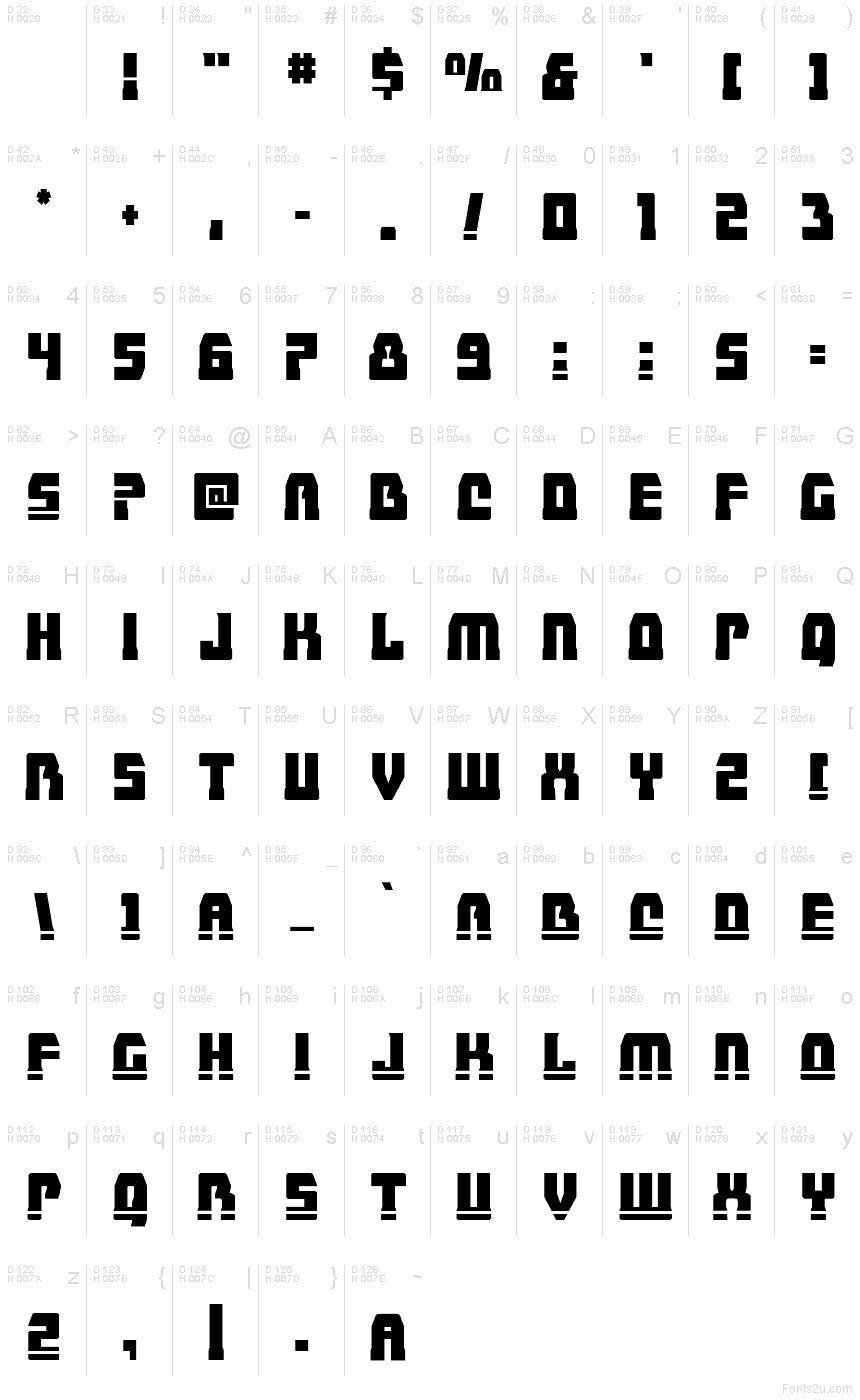
Librator Stripe
Librator Stripe font is a techno display typeface created by Iconian Fonts. The bold font has a distinct industrial feel, with strong presence, geometric structure, and retro vibe. It also showcases assertive style and bold emphasis. And while it’s eye-grabbing, Librator Stripe is easy to read.
Use the free font for contemporary applications in branding and poster designs. It would look wonderful in large book covers and magazine titles as well as website headlines. Enjoy further experimenting with it for ads, flyers, social media platforms posts, event information signs or billboards artwork among other projects.